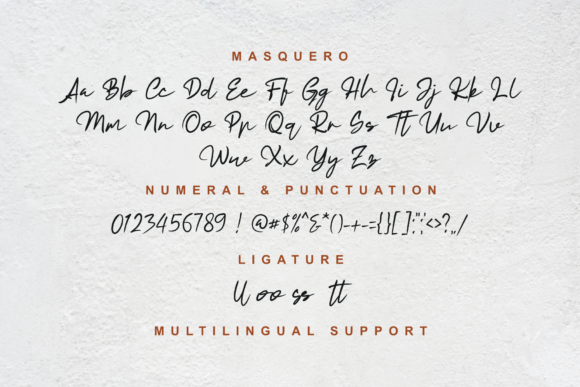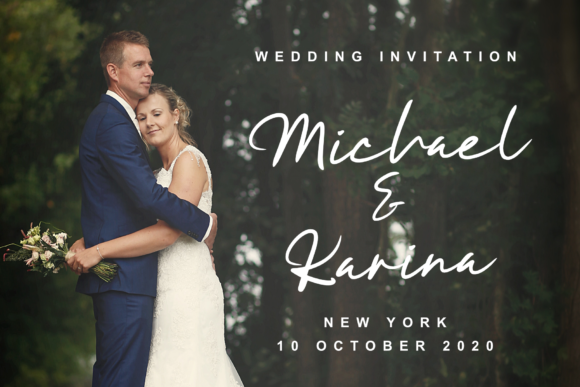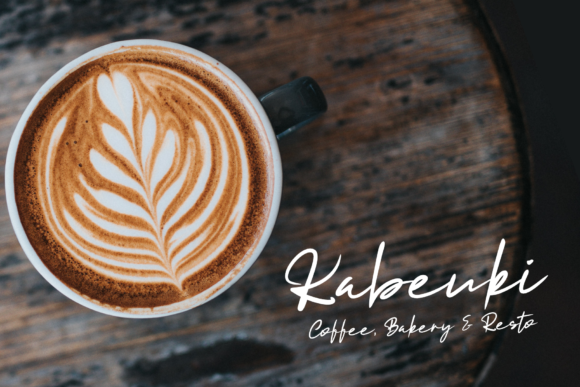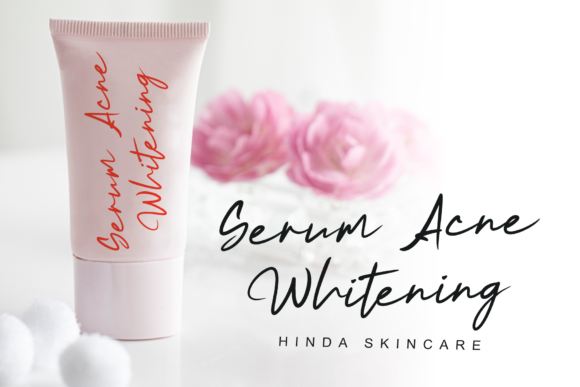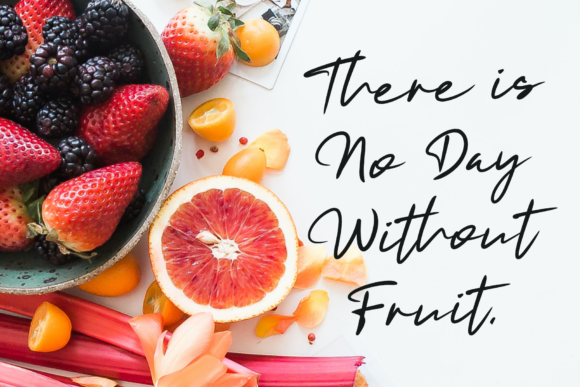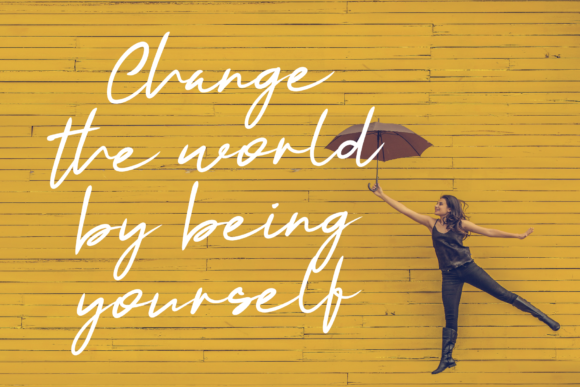
Introduction to Masquero Font
Have you ever been stuck on a creative project, pouring over countless design options, searching for that perfect touch to elevate your work? It’s a moment we’ve all experienced – the moment when everything comes together, and our vision is finally realized. For designers, this feeling is invaluable, and the right font can make all the difference. Enter the Masquero Font, a masterfully crafted handwritten font that brings a touch of elegance and sophistication to any design.
What sets Masquero Font apart is its unique blend of classic calligraphy and modern flair, making it a true design resource for those seeking high-quality typography. With its transparent background and free download availability, this font is accessible to designers of all levels, allowing them to bring their creative visions to life.
- High-quality design resource suitable for creative projects, including posters, flyers, and brochures.
- Features a unique, elegant design with a transparent background, allowing for seamless integration with any design.
- Designed to be highly legible, even at small font sizes, making it perfect for use in a variety of creative contexts.
Honest Review: Masquero Font
I recently had the opportunity to work with the Masquero Font, and I must say it’s a solid addition to any design resource. With its unique blend of modern and elegant style, it’s perfect for creative projects that require a touch of sophistication.
What works well: ✨ The font’s high quality and versatility make it an excellent choice for a wide range of applications, from logos and branding to digital displays and print materials. The transparent background also allows for seamless integration with other design elements.
- High quality and versatile design
Overall impression: The Masquero Font is a solid choice for designers looking for a high-quality, versatile font that’s perfect for creative projects. While it may have some limitations, its strengths far outweigh its weaknesses, making it a valuable addition to any design resource library.
Tips for Getting the Most Out of Masquero Font
Here are some tips for getting the most out of the Masquero Font:
– Use it on a transparent background for a high-quality design.
– Experiment with different font sizes and styles to add visual interest.
– Combine the Masquero Font with other design elements for a creative project.
The Masquero Font is perfect for:
– Creating eye-catching social media graphics.
– Designing promotional materials such as posters and flyers.
– Adding a touch of elegance to your website or blog.
Does the Masquero Font have a transparent background?
Yes, the Masquero Font has a transparent background, making it perfect for designs that require a subtle and elegant look. The transparent background allows the font to blend seamlessly with other design elements, creating a cohesive and visually appealing visual identity for your project.